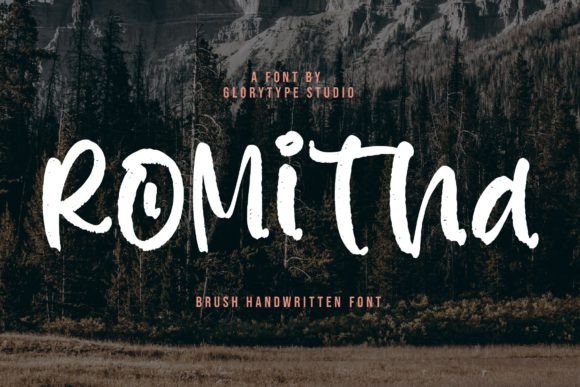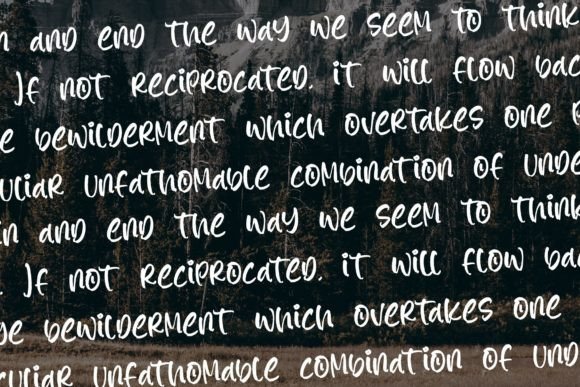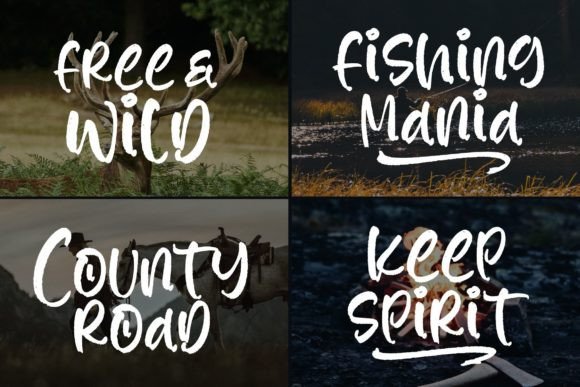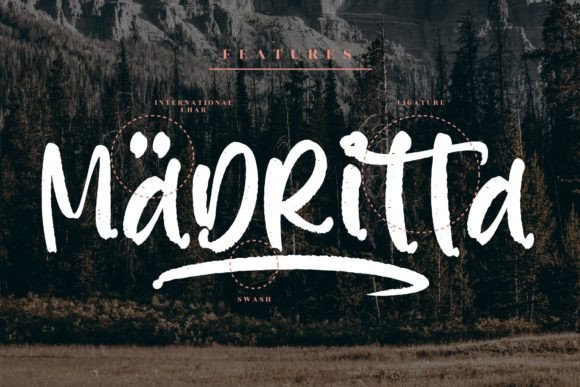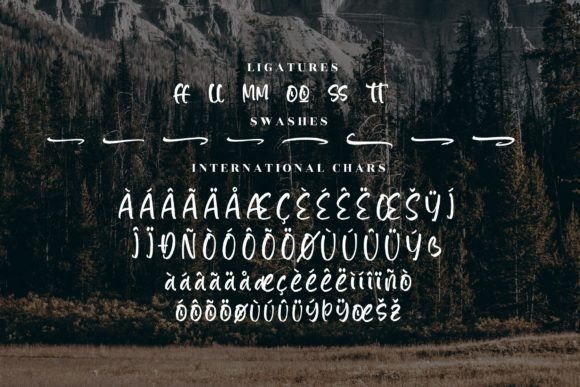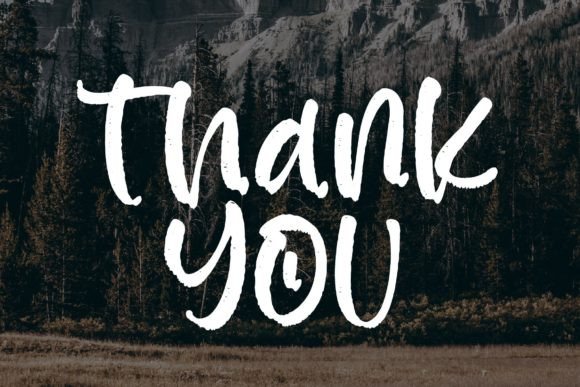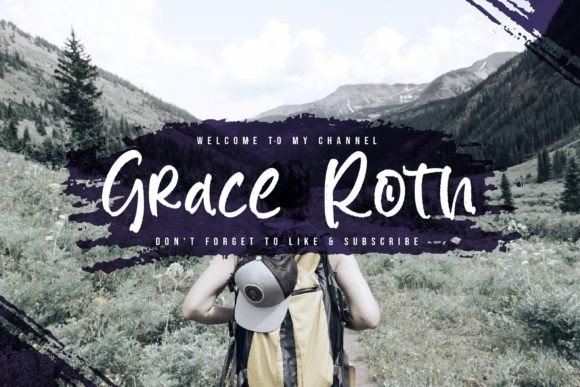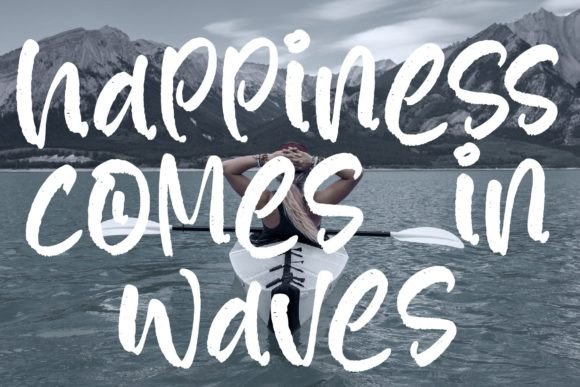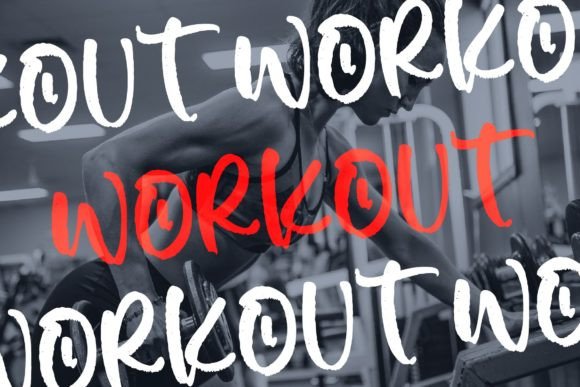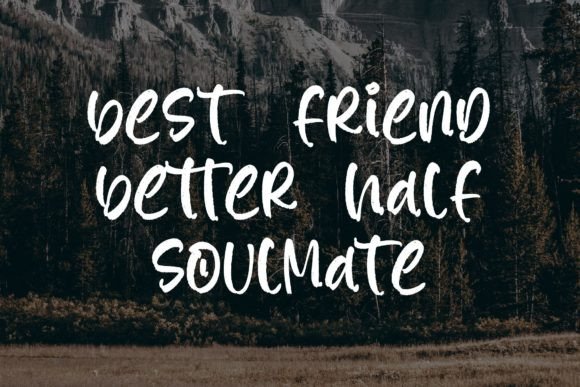
Romitha Font
About Romitha Font
Romitha sounds like a versatile and expressive brush handwritten font, well-suited for a wide range of creative projects. Its suitability for various applications, including logos, branding, product packaging, quotes, and more, suggests that it offers a dynamic and impactful script style.
The brush handwritten quality often brings a sense of organic and handmade charm to designs, making them feel personal and unique. The description indicates that Romitha is designed to add a beautiful script touch to projects, making it an ideal choice for those seeking a stylish and expressive font.
Consider incorporating Romitha into your design projects to explore its brush handwritten characteristics fully. Whether you’re creating a logo, branding materials, or any other design that requires a beautiful script, Romitha seems poised to deliver a distinctive and visually appealing typographic element.
Fonts like Romitha can contribute to creating a memorable and engaging visual identity for your projects. Enjoy utilizing Romitha in your designs, and may it bring a beautiful and expressive script touch to all your creative endeavors!